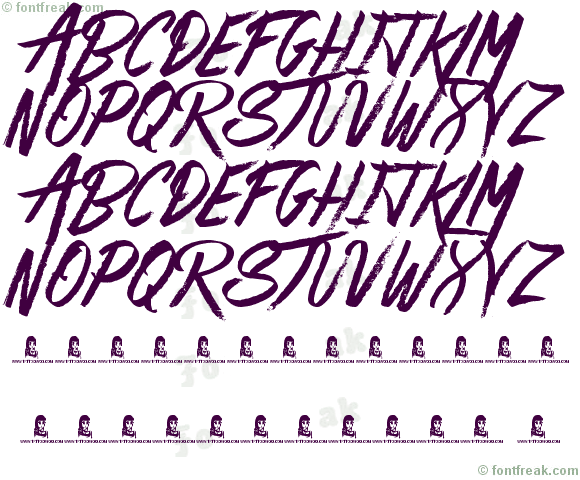
Mega Team
The Mega Team font, designed by Jonathan S. Harris, is a striking display typeface that captures attention with its bold, dynamic style. This font falls into the category of decorative typefaces, characterized by its hand-drawn appearance and expressive strokes. The visual characteristics of Mega Team include a mix of thick and thin stroke weights, creating a sense of movement and energy. The slightly irregular spacing adds to its organic feel, making it perfect for designs that aim to convey creativity and enthusiasm.
Mega Team is ideal for a variety of use cases, including eye-catching movie posters that require a dramatic flair, trendy restaurant menus that want to highlight modern cuisine, and vibrant event flyers that need to stand out. Additionally, this font is well-suited for branding projects for small businesses looking to make a memorable impression. Graphic designers and content creators will find this font particularly appealing due to its versatility and unique aesthetic.
The target audience for Mega Team includes graphic designers seeking a standout typeface for their projects, small business owners wanting to enhance their brand identity, and content creators looking for a striking font to elevate their visual content. With its distinctive style and energetic vibe, Mega Team is a valuable addition to any designer’s toolkit.
What sets Mega Team apart is its ability to convey a sense of excitement while remaining highly legible, making it functional for various applications. The combination of its bold strokes and playful character offers a refreshing alternative to more traditional fonts. For those looking to make a statement, the Mega Team font free download is an opportunity to incorporate this eye-catching typeface into your next creative venture.